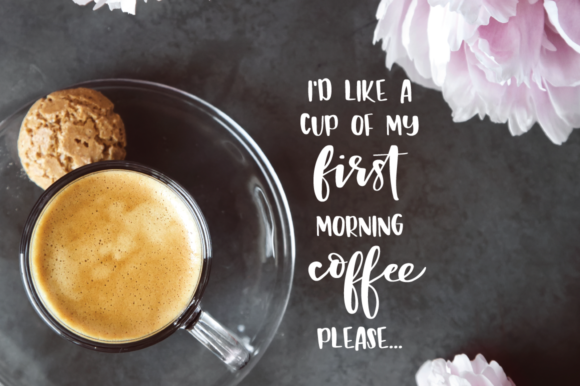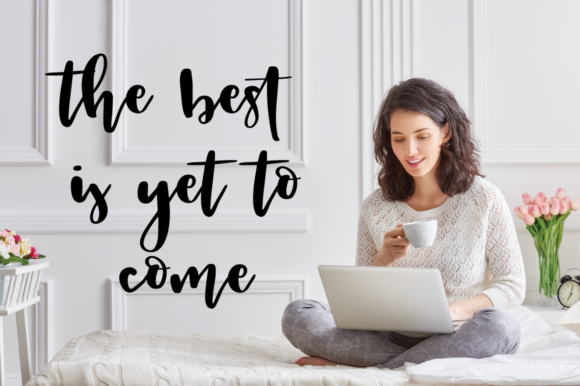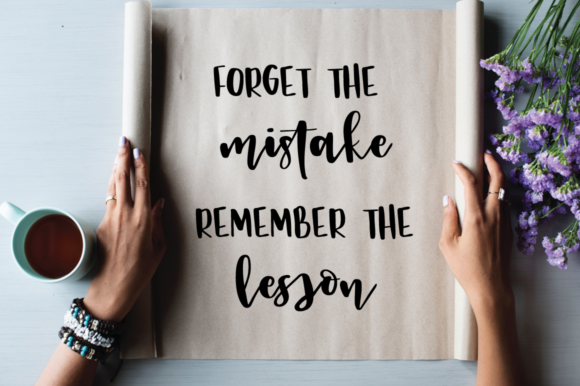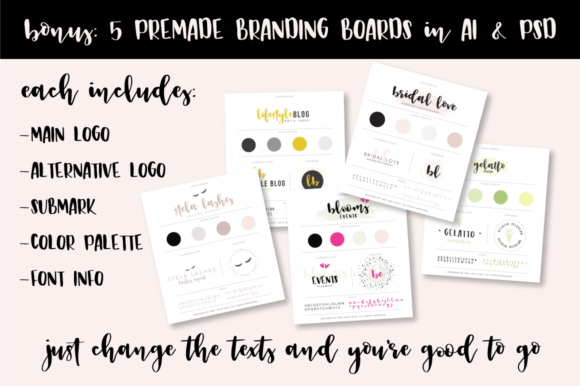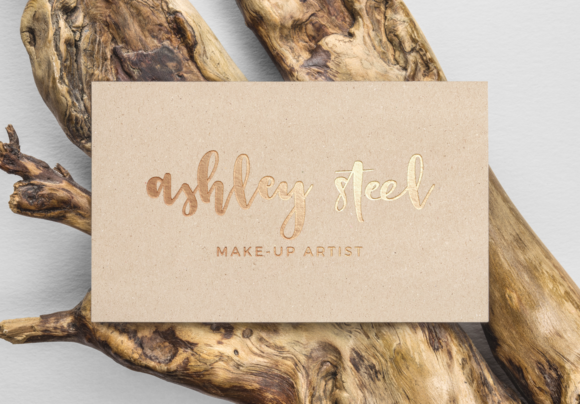
Introducing Castelo Script Font: Elevate Your Brand with Elegant Calligraphy
Are you looking for a font that can add a touch of sophistication and elegance to your brand? Look no further than the Castelo Script Font. This beautiful, hand-lettered calligraphy script is perfect for designers and crafters who want to create stunning branding materials, stationery, and more. In this article, we’ll dive into the features and benefits of the Castelo Script Font and explore how it can elevate your brand.
What is Castelo Script Font?
The Castelo Script Font is a thick, hand-lettered calligraphy script that exudes elegance and sophistication. It’s a versatile font that can be used for a wide range of applications, from branding and stationery to wedding invitations, posters, and social media graphics. The font comes with five premade branding kits that make it easy to get started with your design project.
Features of Castelo Script Font
The Castelo Script Font is more than just a beautiful font – it also comes with a range of features that make it easy to use and customize. Some of the key features include:
- 5 Premade Branding Kits: The Castelo Script Font comes with five premade branding kits that include everything you need to create a cohesive brand identity. Each kit includes a main logo, alternate logo, submark, color palette, and font list.
- Easy to Customize: The branding kits are easy to customize – simply retype the text and you’re good to go! This makes it easy to create a unique brand identity that reflects your business or client’s personality.
What Can You Use Castelo Script Font For?
The Castelo Script Font is a versatile font that can be used for a wide range of applications, including:
- Branding: Use the Castelo Script Font to create a cohesive brand identity that reflects your business or client’s personality.
- Stationery: Create beautiful stationery, including letterheads, business cards, and envelopes.
- Wedding Invitations: Use the Castelo Script Font to create stunning wedding invitations that set the tone for your special day.
- Posters: Create eye-catching posters that showcase your brand or message.
- Social Media Graphics: Use the Castelo Script Font to create engaging social media graphics, including Instagram posts and Facebook graphics.
- Product Design: Use the Castelo Script Font to create beautiful product designs, including packaging and labels.
Why Choose Castelo Script Font?
There are many reasons why you should choose the Castelo Script Font for your next design project. Here are just a few:
- Elegant and Sophisticated: The Castelo Script Font is a beautiful, elegant font that adds a touch of sophistication to any design project.
- Versatile: The Castelo Script Font is a versatile font that can be used for a wide range of applications.
- Easy to Use: The Castelo Script Font comes with premade branding kits that make it easy to get started with your design project.
- Customizable: The branding kits are easy to customize, making it easy to create a unique brand identity that reflects your business or client’s personality.
The Castelo Script Font is a beautiful, elegant font that is perfect for designers and crafters who want to create stunning branding materials, stationery, and more. With its premade branding kits, easy customization, and versatile design, it’s an excellent choice for any design project. Whether you’re looking to create a cohesive brand identity, design beautiful stationery, or create engaging social media graphics, the Castelo Script Font is an excellent choice.